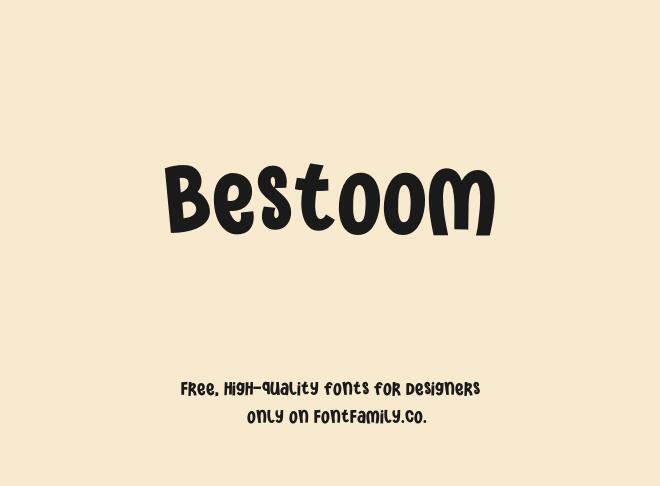
Bestoom Font
The Bestoom Font is a modern, elegant and impressive handwritten typeface created by the Creative Foundry. It features a minimalistic design with a unique blend of curves and straight lines, creating a balance between aesthetic appeal and readability. Bestoom Font is comparable to the likes of Brush Script, yet it stands out with its own distinct style and character. It's an excellent choice for a wide range of design projects, including logos, branding, wedding invitations, social media posts, and more. The font's inherent elegance and modern charm can enhance any design project, making it look more professional and visually appealing. Bestoom Font is not just a typeface, it's a powerful design tool that can help you create stunning and memorable designs.